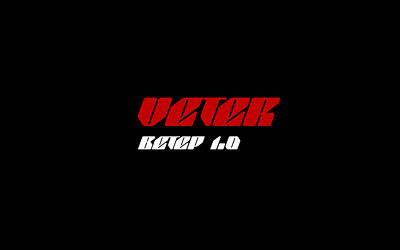
Hiper Ninja Font
Hiper Ninja is a bold display typeface designed for applying cool futuristic inscriptions on various surfaces. The font is based on a square shapes and lines at an angle of 45 degrees.
Hiper Ninja font is designed for simple words or headings.
Designed by: Tim Kasimoff